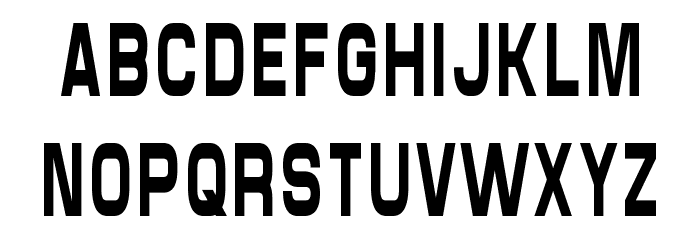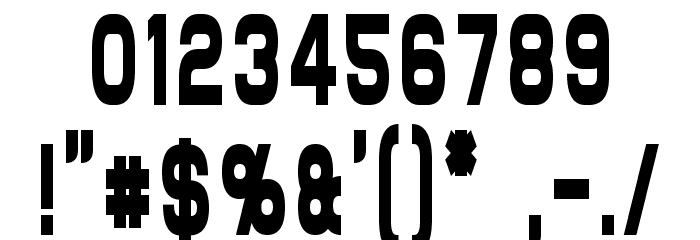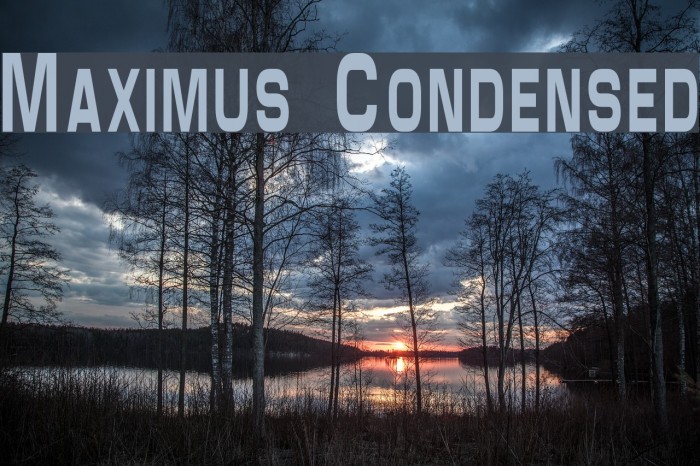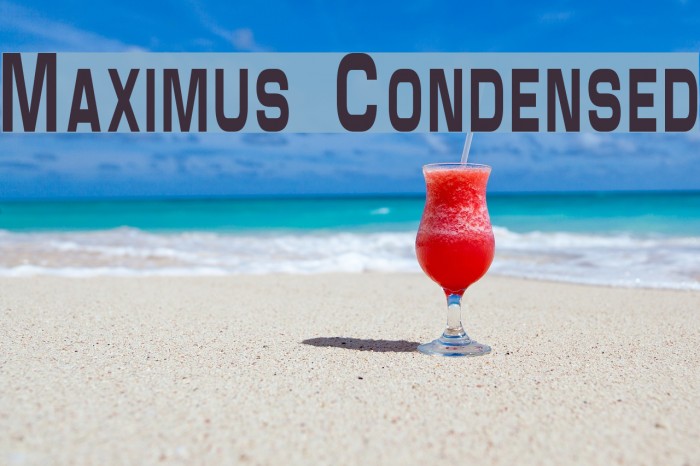
Maximus Condensed Font
This font features a bold and condensed style, characterized by its strong, impactful presence. The uppercase letters are uniform in height, with a geometric structure that emphasizes verticality. The lowercase letters maintain the same condensed form, ensuring consistency across the typeface. The numerals are equally bold, providing a cohesive look with the alphabet. Special characters are designed to match the overall boldness and condensed nature, making them stand out effectively. The font's clean lines and lack of serifs contribute to its modern and professional appearance, suitable for various design applications.
A bold, condensed font with a modern, geometric style.
- Proposed Projects: Ideal for headlines, posters, branding, and any design requiring a strong, impactful typeface.